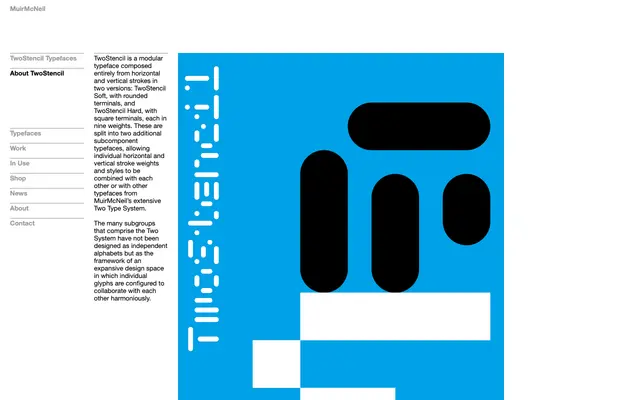
TwoStencil
A modular stencil typeface built entirely from horizontal and vertical strokes, released in two terminal variants across nine weights each as part of MuirMcNeil's Two Type System.
TwoStencil is constructed from a strict grid of horizontal and vertical strokes, available in Soft (rounded terminals) and Hard (square terminals) versions, each in nine weights. Each version splits further into subcomponent typefaces, allowing the horizontal and vertical stroke weights and styles to be mixed independently or combined with other typefaces across MuirMcNeil's broader Two Type System. The design is conceived not as a standalone alphabet but as one element within an expansive, harmonically integrated typographic framework.
TwoStencil is a display typeface built entirely from horizontal and vertical strokes in a modular grid system, functioning as a stencil-style constructed type rather than a conventional readable text face.